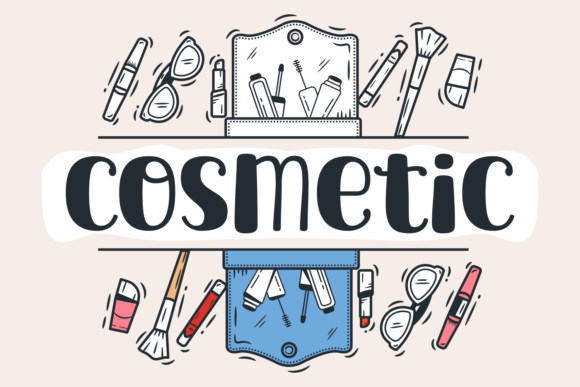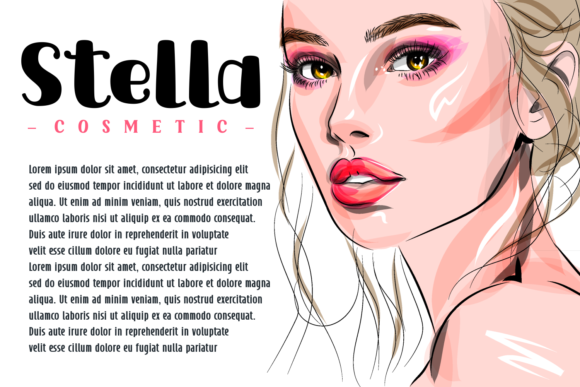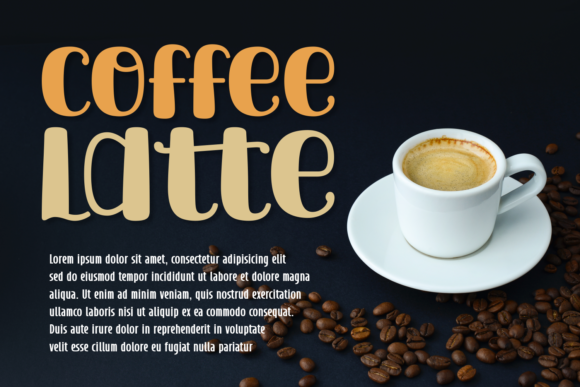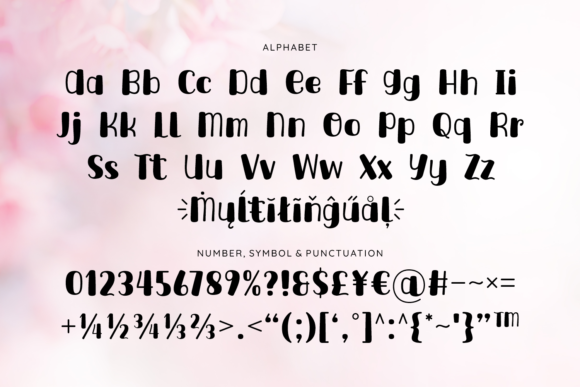
Introduction to Little Beauty Font
Have you ever stared at a blank canvas, eager to bring your creative vision to life, only to feel stuck by the lack of the perfect font? That’s exactly how many designers feel when they’re working on their next big project. But what if I told you that there’s a font that can change all that? Say hello to the Little Beauty Font, a charming display font that’s sure to elevate your designs to the next level.
Key Features of Little Beauty Font
- High-quality design: This font features intricate details and elegant lines, perfect for upscale designs.
- Perfect for creative projects: Little Beauty Font is ideal for wedding invitations, fashion designs, and other high-end creative projects.
- Unique characteristics: This font features a unique blend of modern and classic elements, making it a standout design resource.
Honest Review: Little Beauty Font
What works well: ✨ The font is highly customizable, making it perfect for creative projects that require a touch of elegance. The clean and minimalist design is also a major plus. I particularly love the fact that it’s available with a transparent background, which gives me the flexibility to use it in a variety of design contexts.
- Clean and minimalist design
Using Little Beauty Font in Creative Projects
The Little Beauty Font is perfect for creative projects that require a unique and elegant touch. It’s ideal for use in logos, branding materials, and other design elements. With its transparent background, you can easily place it over any image or background.
Tips for Getting the Most Out of Little Beauty Font
To get the most out of the Little Beauty Font, use it in conjunction with high-quality images and design elements. Experiment with different font sizes, colors, and styles to create a unique and eye-catching design.
The Little Beauty Font is perfect for a variety of use cases, including:
- Business cards and broch